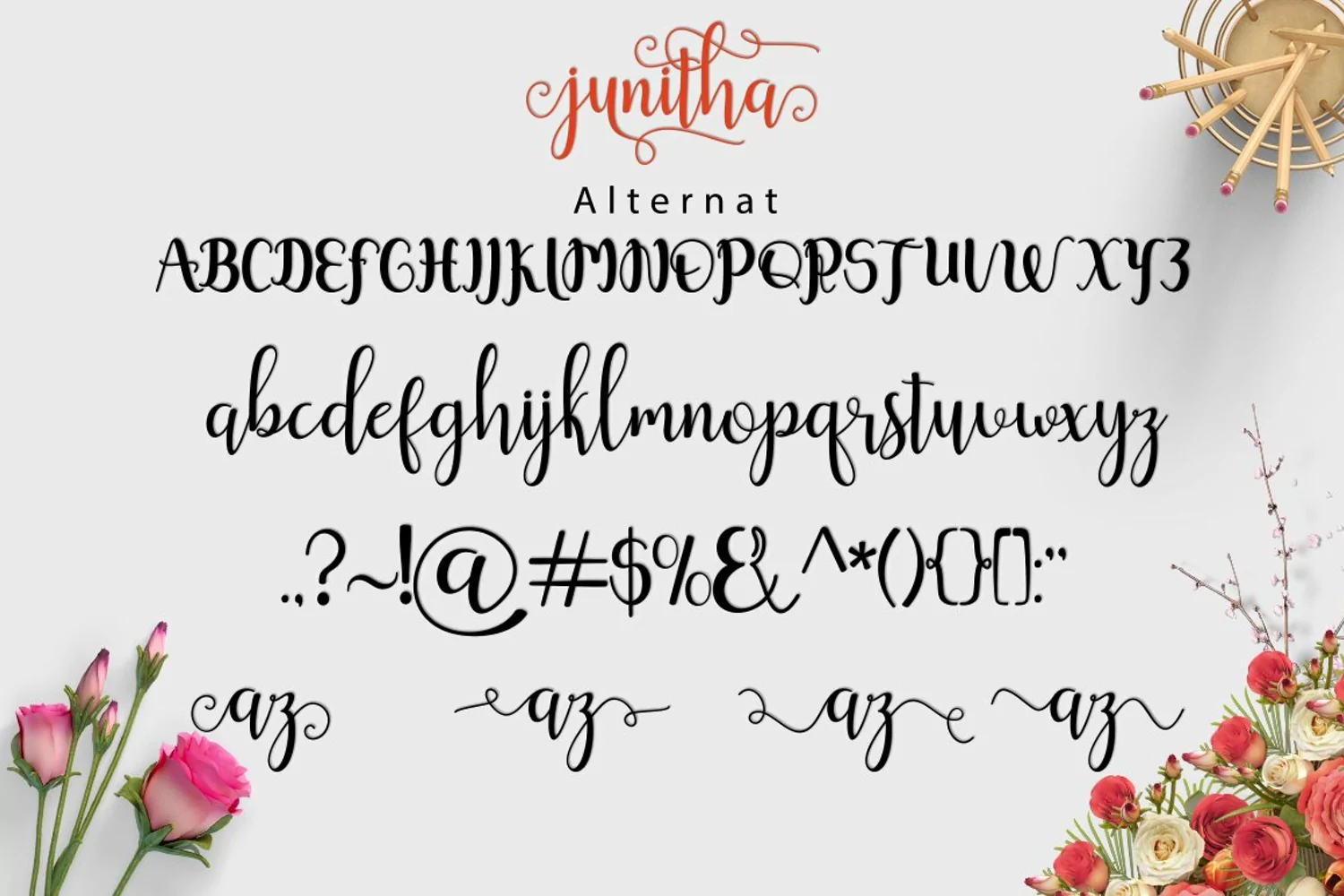
Junitha Script is an attractive modern calligraphy style script font. Packed with 496 glyphs, this wonderful font can be used time and time again for your design and craft projects.